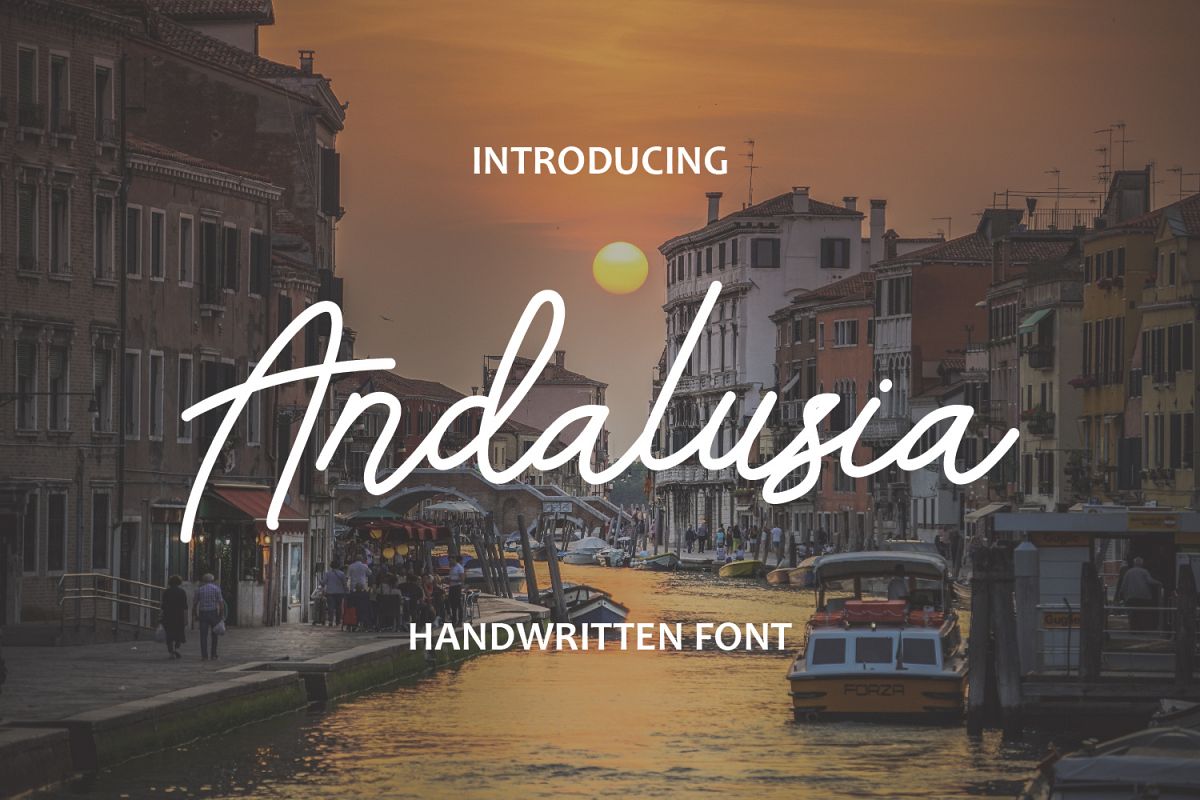
Andalusia Script
Andalusia Script Font
Introducing – Andalusia handwritten font which stylish natural handwritten font with simple style, clean and elegant. This font is so fashionable and perfect for photography, branding, signature and logo.